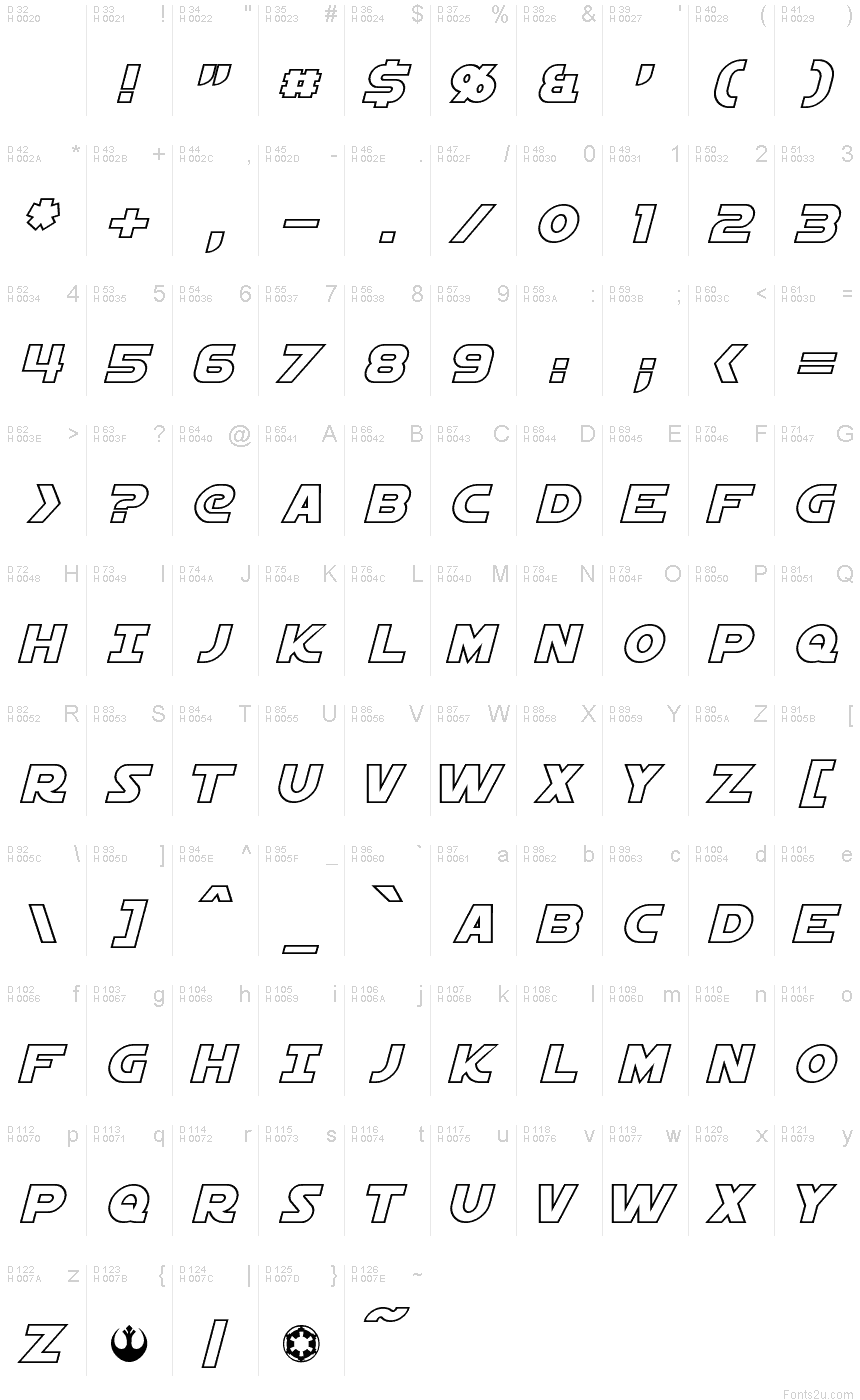
Starkiller Outline Italic by Neale Davidson is a free outlined modern display font with a wide, forward-leaning stance. Its hollow capitals have squared curves, clipped joins, and sharp diagonal cuts. The letters feel engineered for speed.
Motorsport branding and science-fiction title cards both benefit from its stretched proportions and forceful slant. It also suits arcade game interfaces and team merchandise, especially when the design calls for a technical, high-velocity look. The open interiors can echo racetrack markings, spacecraft panels, or other linear graphics within those themes.
This “Star Wars” font is based on the movie marquees from “A New Hope” through “Return of the Jedi.” It includes italic and hollow versions.